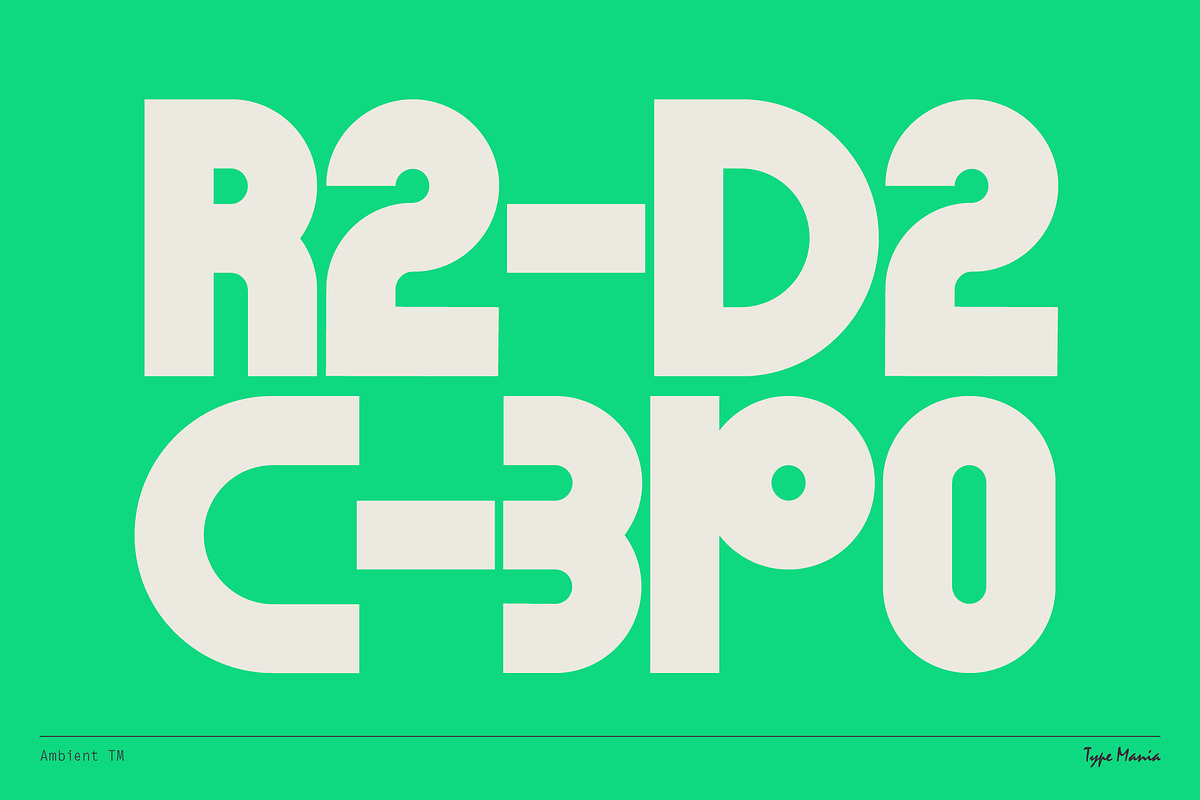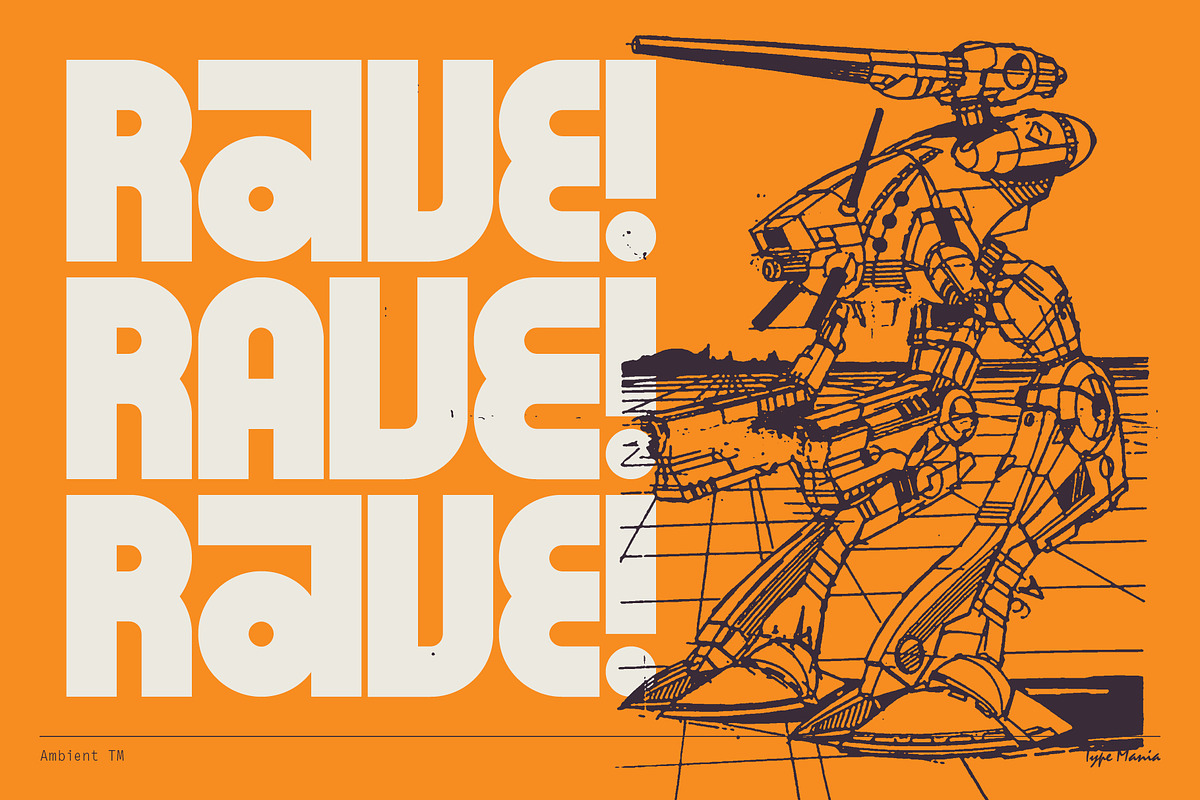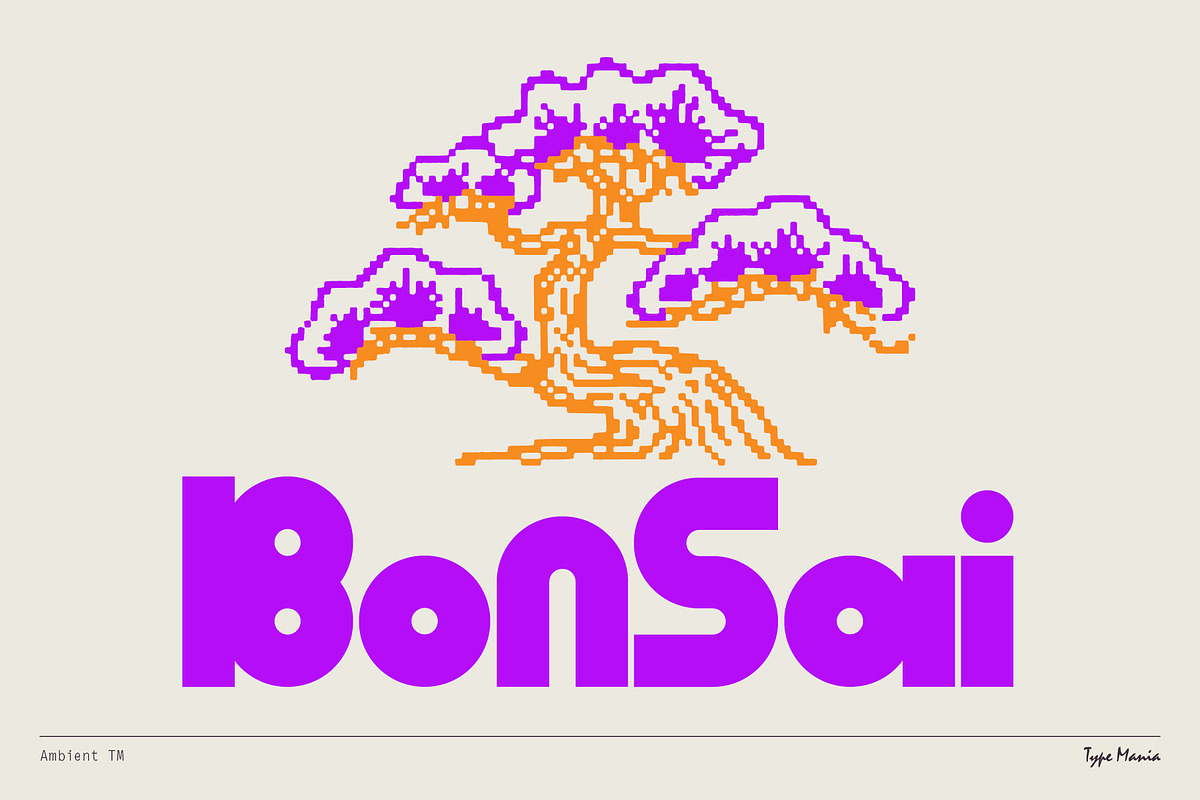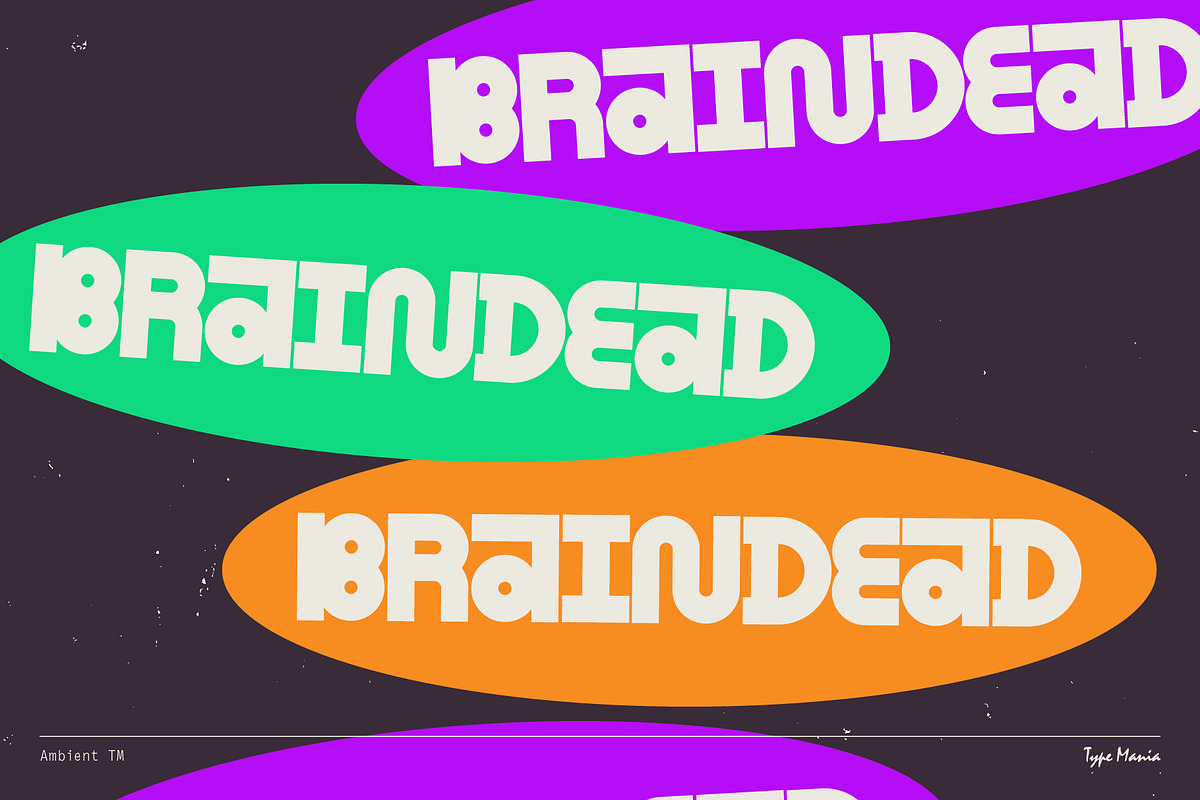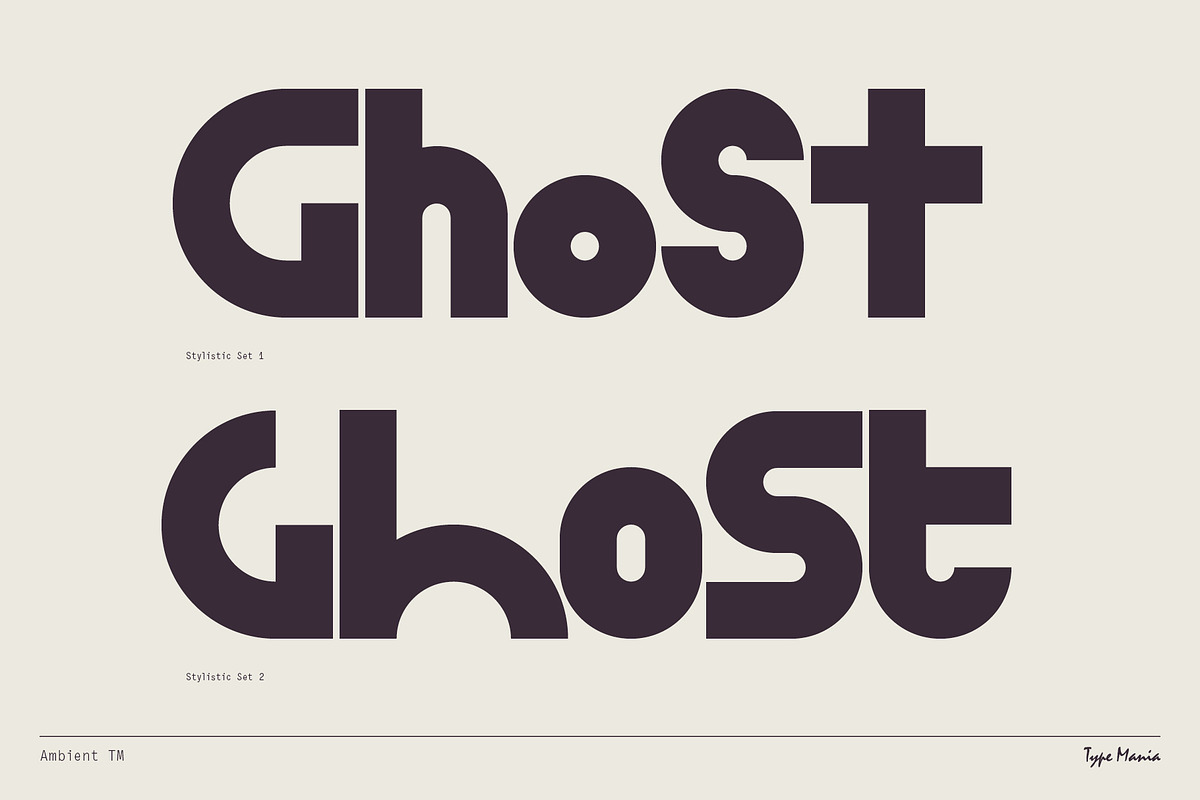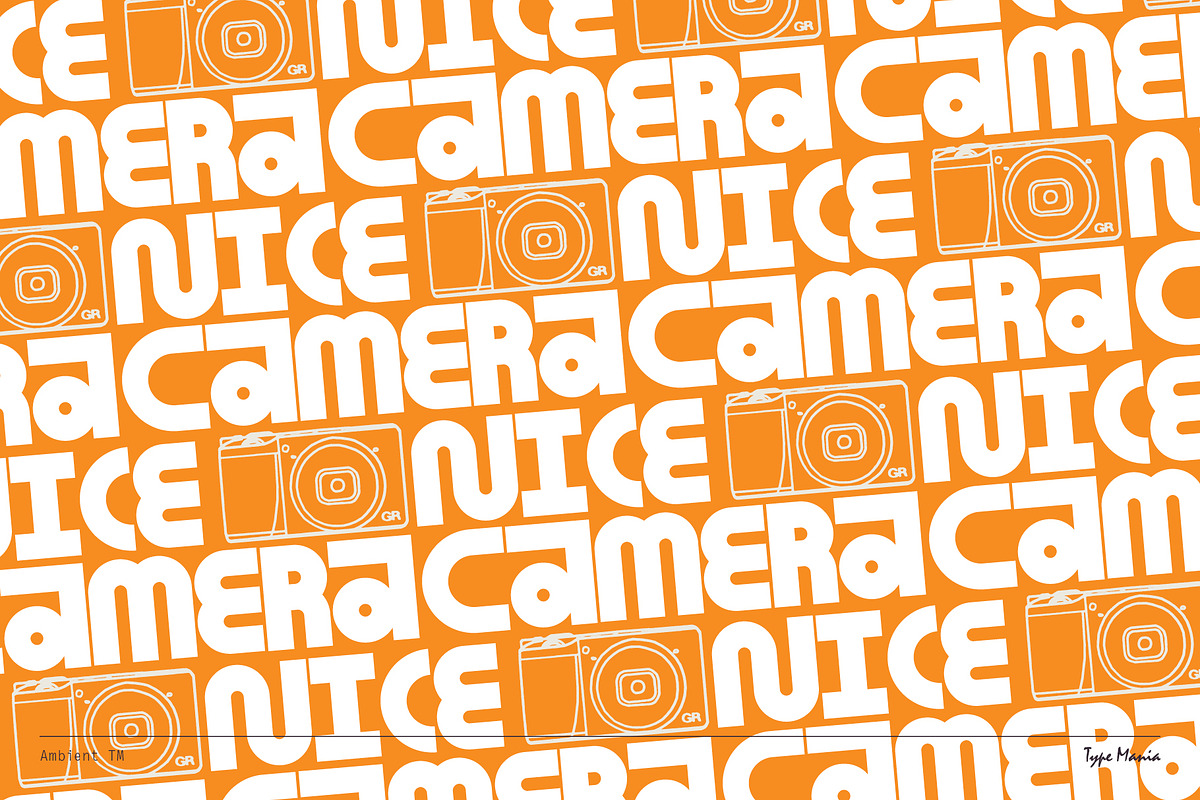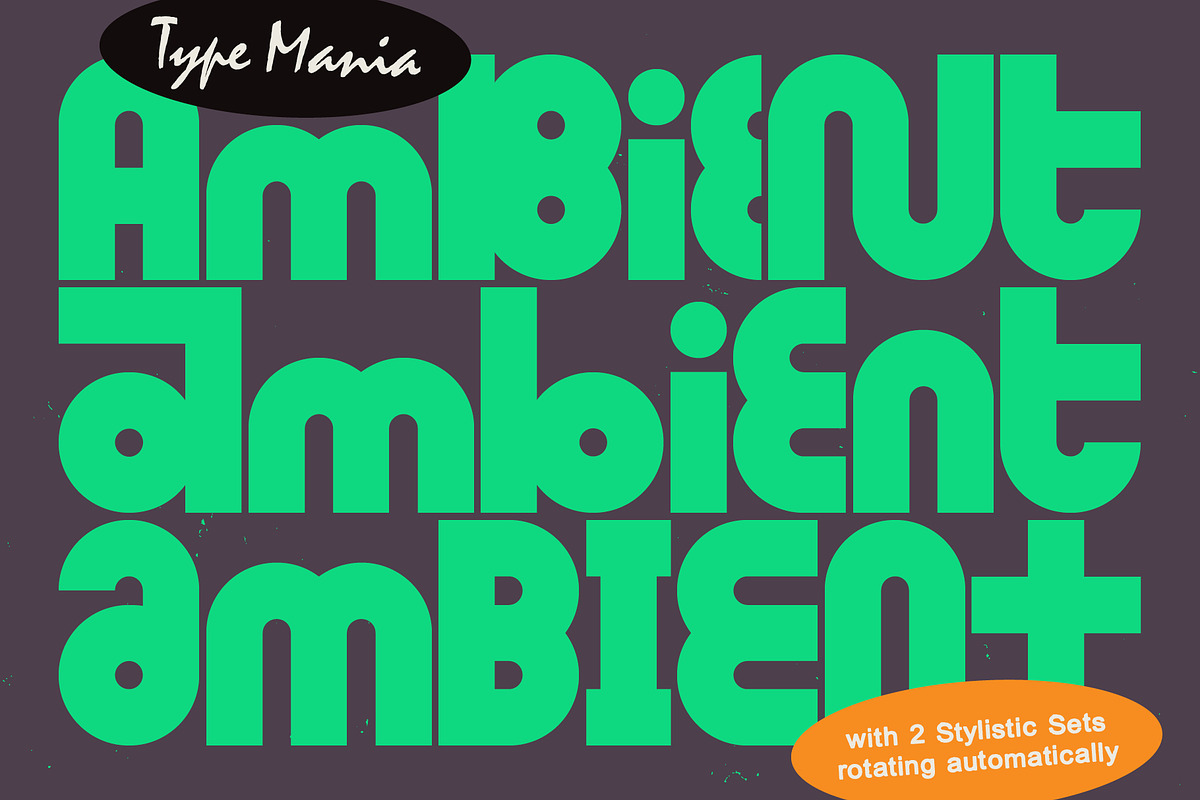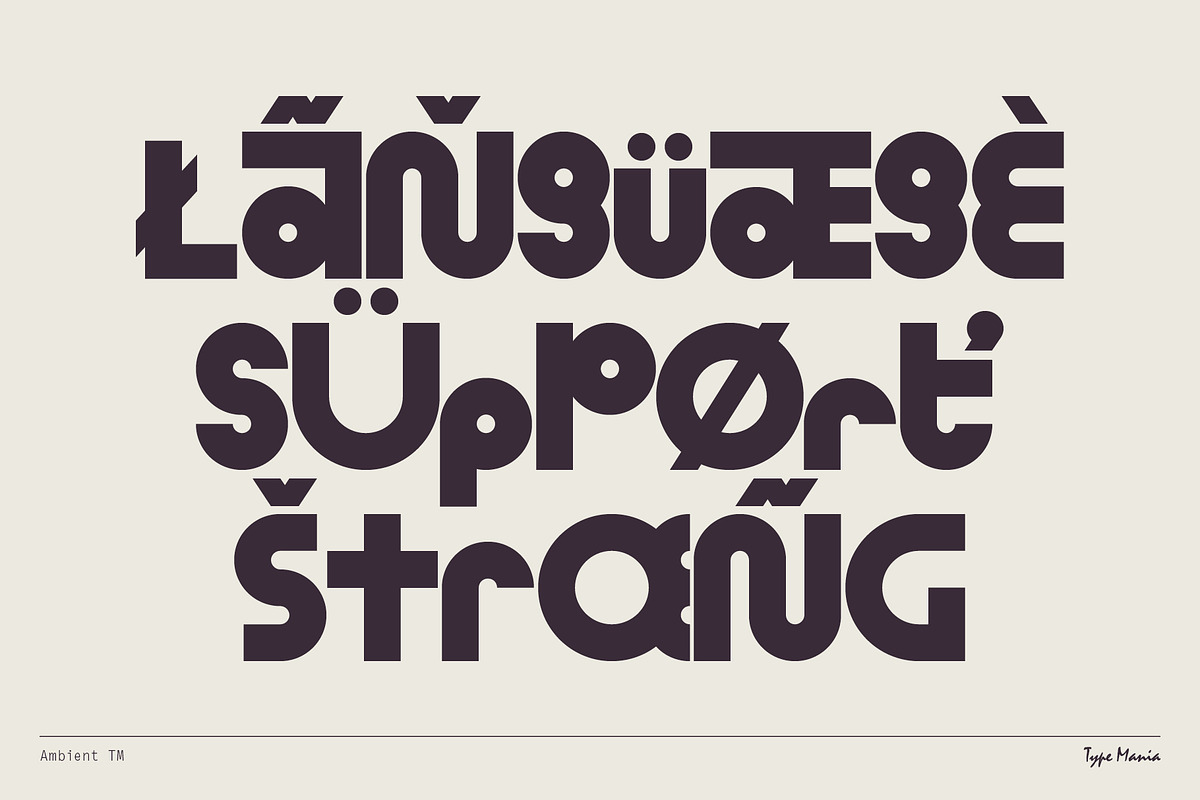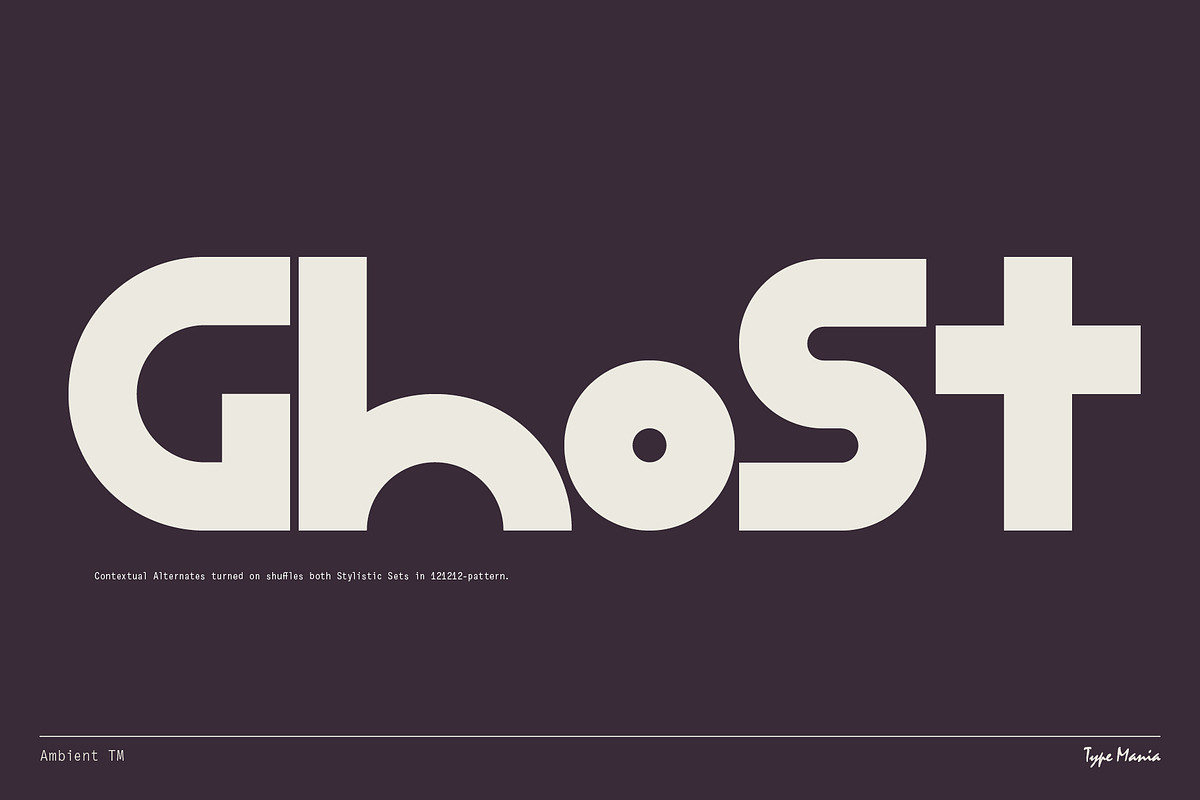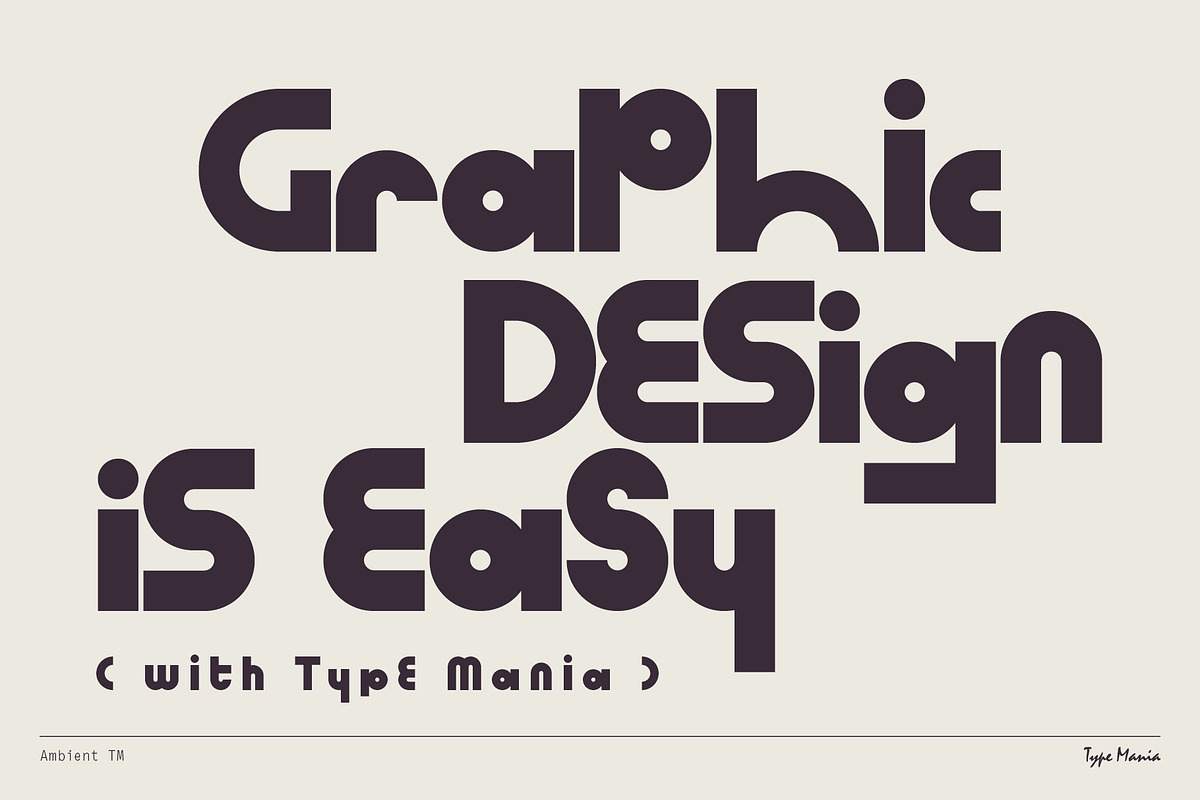
Ambient TM – Experimental Geometry
Ambient TM takes the rigid, hard-edge geometry and gives it life. Two stylistic sets rotate automatically as you type, shifting circles and squares into new alignments 👁️⃤
OpenType features
- 2 stylistic sets
- The font is programmed to automatically shift between the stylistic sets